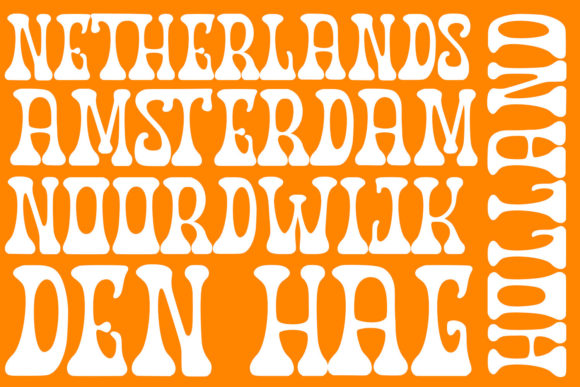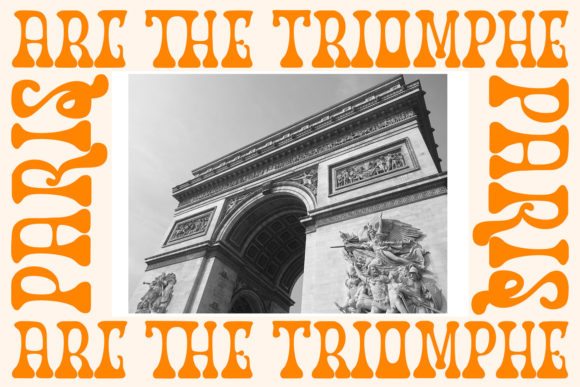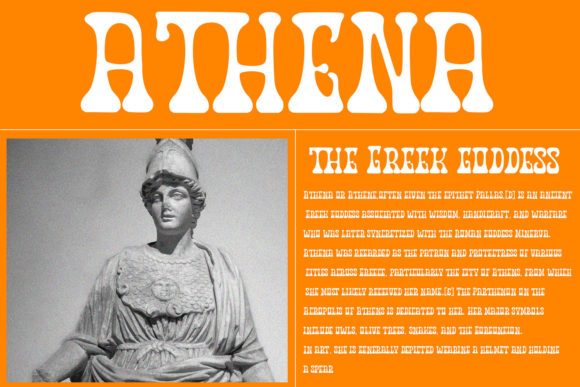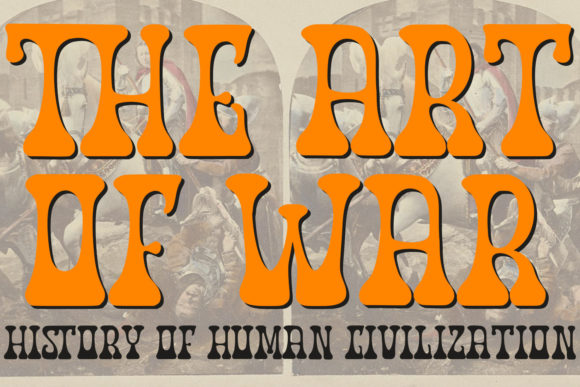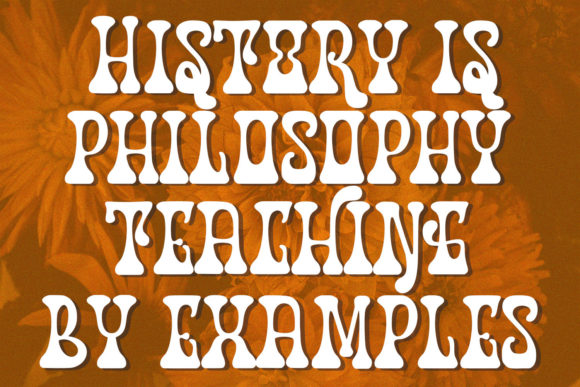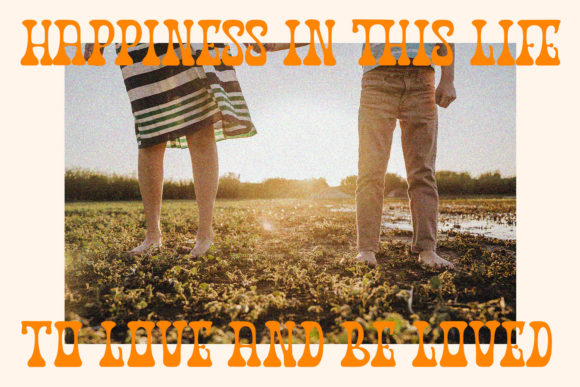
Gromhins Font: The Ultimate Guide to this Psychedelic Display Font
Are you a designer or crafter looking for a unique and eye-catching font to elevate your creative projects? Look no further than Gromhins Font! This cool, fun, and psychedelic display font is perfect for a wide range of applications, from product packaging and branding projects to magazine covers, social media, and wedding designs. In this article, we’ll dive into the world of Gromhins Font and explore its features, uses, and benefits.
What is Gromhins Font?
Gromhins Font is a display font that boasts a psychedelic and playful aesthetic. Its unique design makes it stand out from more traditional fonts, adding a touch of whimsy and fun to any project. The font’s bold and colorful appearance is sure to grab attention, making it perfect for designs that need to make a statement.
Key Features of Gromhins Font
- Psychedelic Design: Gromhins Font features a truly psychedelic design that’s sure to turn heads. Its swirling patterns and bright colors create a mesmerizing effect that’s perfect for designs that need to pop.
- Cool and Fun: This font is all about having fun and being creative. Its playful aesthetic makes it perfect for designs that need to convey a sense of playfulness and energy.
- Display Font: Gromhins Font is a display font, meaning it’s designed to be used in large sizes to make a bold statement. It’s perfect for headlines, titles, and other design elements that need to stand out.
- Multipurpose: Gromhins Font can be used for a wide range of projects, from product packaging and branding to magazine covers, social media, and wedding designs.
Uses for Gromhins Font
So, what can you use Gromhins Font for? The possibilities are endless! Here are a few ideas to get you started:
- Product Packaging: Add a pop of color and personality to your product packaging with Gromhins Font. It’s perfect for food labels, cosmetics packaging, and more.
- Branding Projects: Create a bold and eye-catching brand identity with Gromhins Font. Use it for logos, business cards, and other marketing materials.
- Magazine Covers: Make your magazine cover stand out with Gromhins Font. Its bold and colorful design is sure to grab attention on newsstands.
- Social Media: Use Gromhins Font to create eye-catching social media graphics, from Facebook posts to Instagram stories.
- Wedding Designs: Add a touch of whimsy and fun to your wedding designs with Gromhins Font. Use it for wedding invitations, signs, and other decorative elements.
Benefits of Using Gromhins Font
So, why should you choose Gromhins Font for your next project? Here are just a few benefits:
- Unique Design: Gromhins Font offers a truly unique design that’s sure to set your project apart from the crowd.
- Multipurpose: Gromhins Font can be used for a wide range of projects, making it a great addition to any designer’s toolkit.
- High-Quality: This font is high-quality and designed to look great in large sizes, making it perfect for display purposes.
Tips for Using Gromhins Font
Here are a few tips for using Gromhins Font in your designs:
- Use it Boldly: Gromhins Font is designed to be used boldly, so don’t be afraid to make it big and bright.
- Experiment with Colors: This font looks great in a wide range of colors, so experiment with different hues to find the perfect look for your project.
- Pair it with Simple Backgrounds: Gromhins Font really pops against simple backgrounds, so try pairing it with a solid color or a subtle texture.
Gromhins Font is a cool, fun, and psychedelic display font that’s perfect for designers and crafters looking to add a touch of whimsy and fun to their projects. With its unique design, ease of use, and multipurpose nature, it’s a great addition to any designer’s toolkit. Whether you’re working on product packaging, branding projects, magazine covers, social media, or wedding designs, Gromhins Font is sure to make your project stand out. So why not give it a try and see what amazing designs you can create?